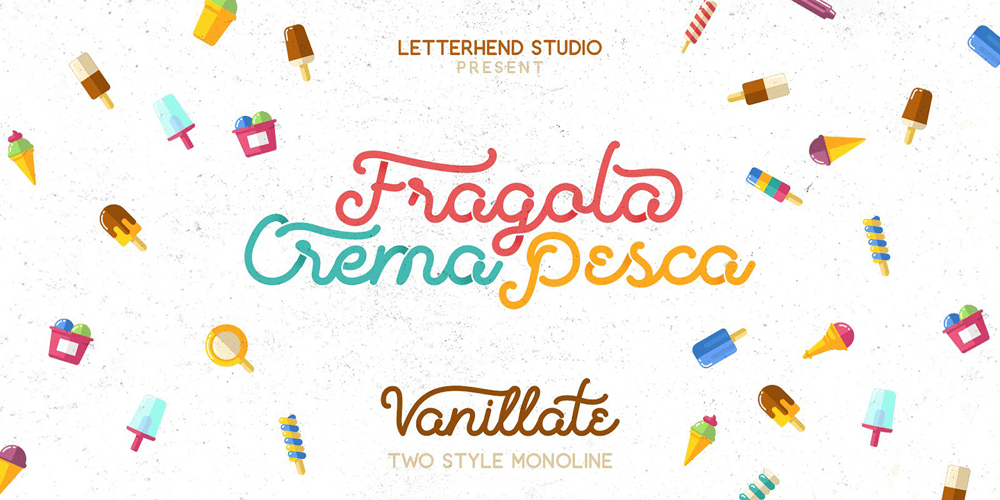
Vanillate
Vanillate Font Family was designed by Hendry Juanda and published by Letterhend. Vanillate contains 4 styles and family package options. Vanillate is a unique monoline script typeface with two styles of monoline. This font is comes in uppercase, lowercase, punctuation, symbols, numerals, stylistic set alternate, and ligatures. This consist of 4 fonts: Vanillate Regular that is the regular version of this font. Vanillate Alt is the regular version with an overlapping effect.Vanillate Rounded is the regular version with rounded edge. Vanillate Rounded Alt is the rounded version with an overlapping effect on it.